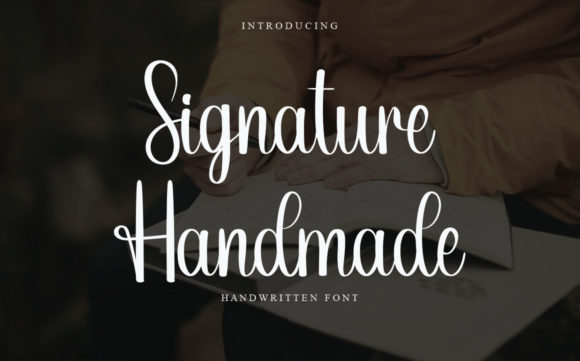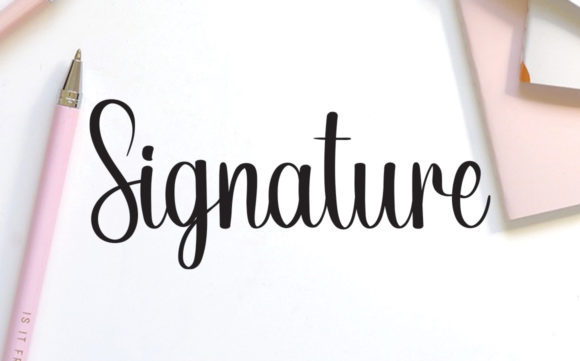
About Signature Handmade Font
Signature handmade is a beautiful and flowing handwritten font. Use it for wall displays, wedding invitations, social media post logos, advertisements, product packaging, product designs, labels, photography, watermarks, invitations, stationery, and any project that requires impressive typography.